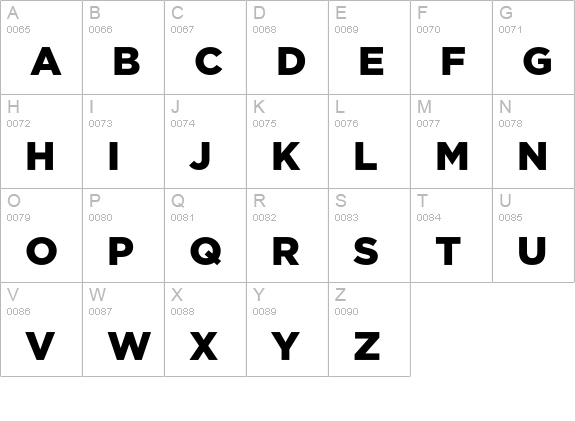
Its vertical strokes are thicker than its horizontals, the ascenders are shortened and the 'o' is not perfectly round, tweaks that aid legibility and give the typeface a harmonious appearance.
Gotham black font mac. Please, talk with the author for commercial use or for any support. Made for professional use, gotham is a large family with four widths, eight weights, and separate designs for screenplay and a rounded version. Please, talk with the author for commercial use or for any support.
Since the creation of gotham typeface it was highly legible, quite visual and with apparent effects it was being featured on many notable places. You can use the gotham black to create interesting designs, covers, shop and store name and logos. Gotham black is the perfect font for all your fun designs.
The typeface was initially commissioned by gq magazine. You can use the gotham black to create interesting designs, covers, shop and store name and logos. Try fonts from selection of high quality & professional desktop and web fonts.